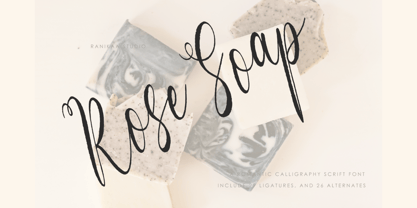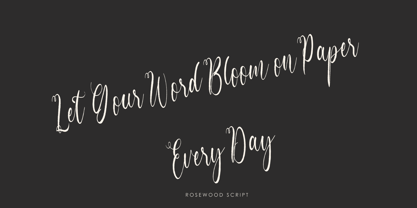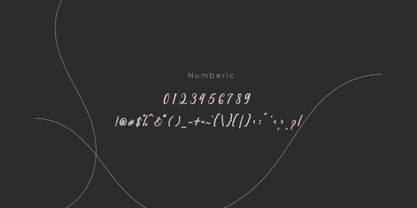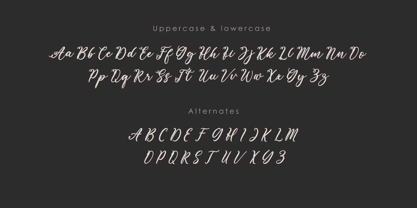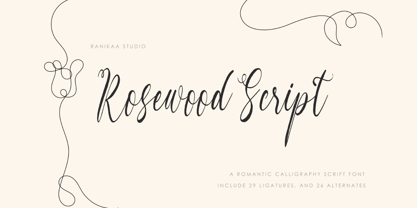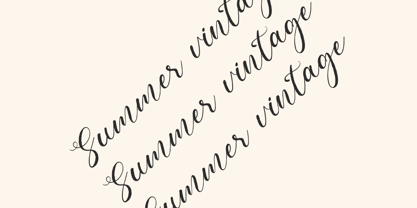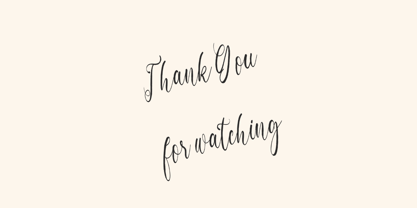
Rosewood Script
by Ranikaa Type Studio
The Rosewood Script Font Family was designed by Rani Septia and published by Ranikaa Type Studio. Rosewood Script contains 2 styles and family package options. More about this family
Introducing Rosewood Script, a beautifully flowing modern calligraphy font crafted for moments that deserve a personal touch. Inspired by vintage love letters and the gentle sway of rose petals in the breeze, Rosewood brings warmth, elegance, and emotion to every word.
Whether you're designing for a wedding invitation, branding project, logo, or social media post — this font delivers both sophistication and charm in one graceful stroke.
What makes Rosewood Script special?
• Hand-drawn strokes with natural curve and rhythm
• Beautiful ligatures & stylistic alternates for variety
• Multilingual support for global elegance
• Perfectly suited for romantic themes, feminine branding, and creative headlines
Let your words bloom with Rosewood Script — where every letter tells a love story.
Designers: Rani Septia
Foundry: Ranikaa Type Studio